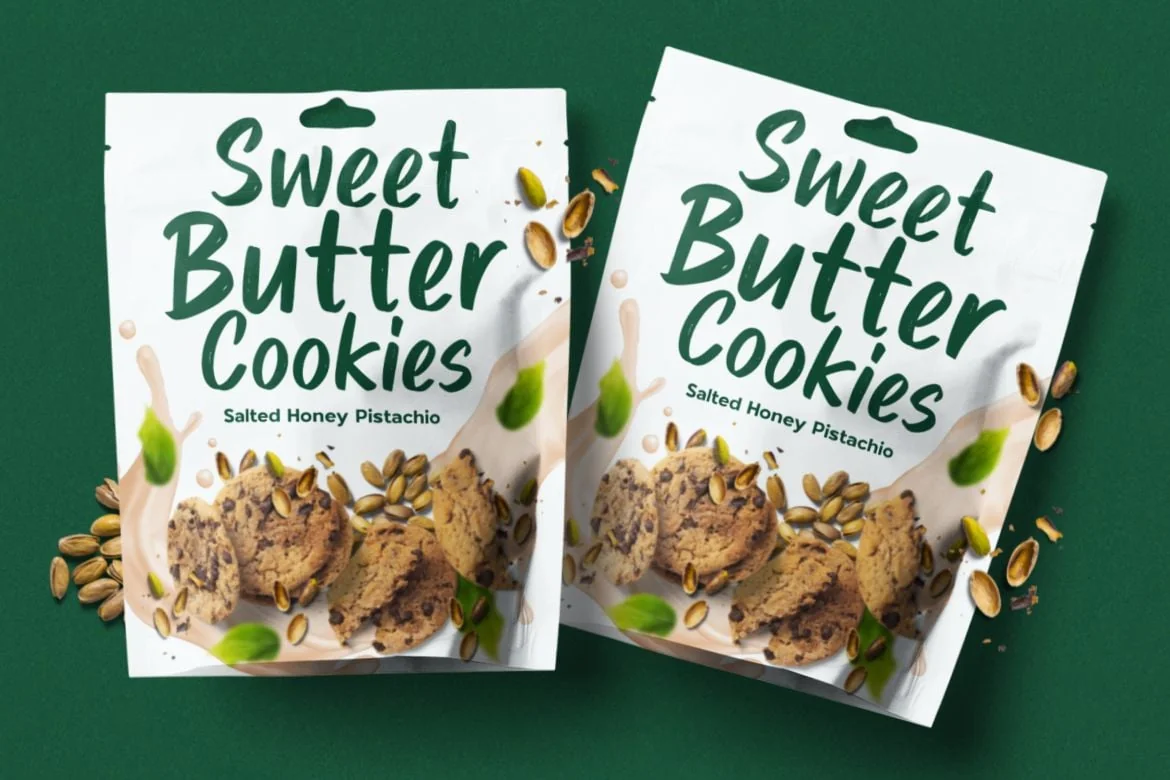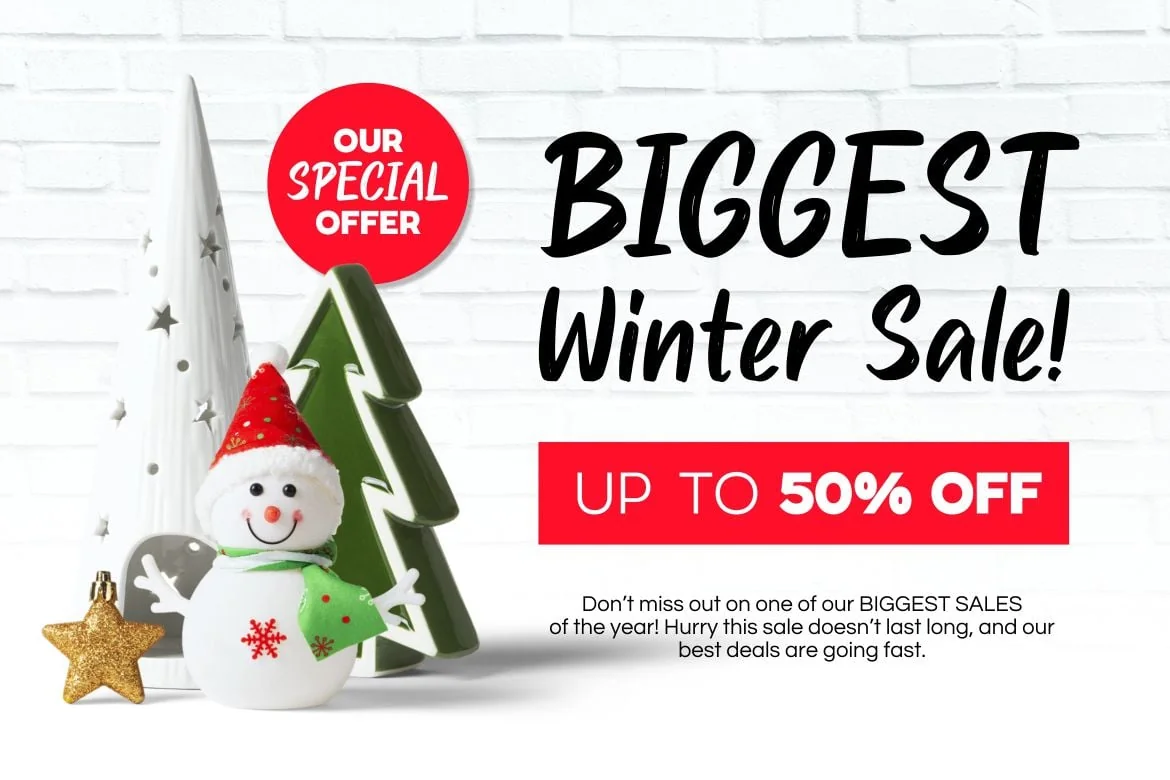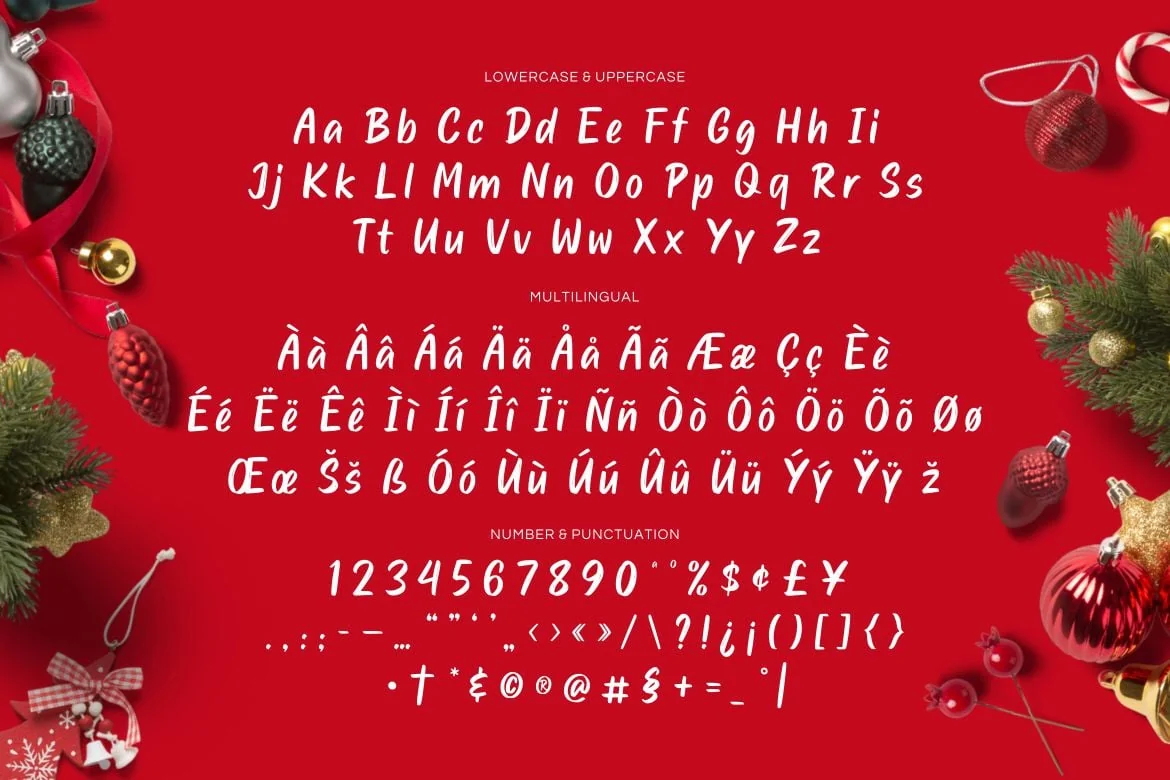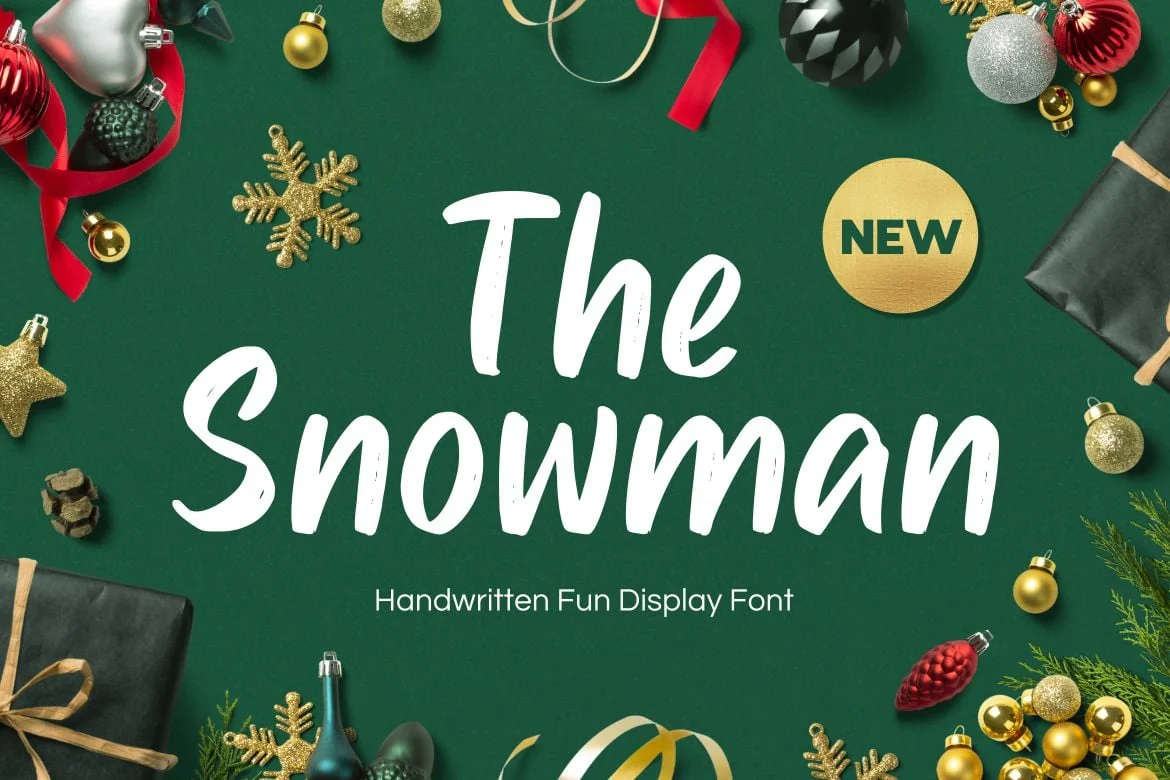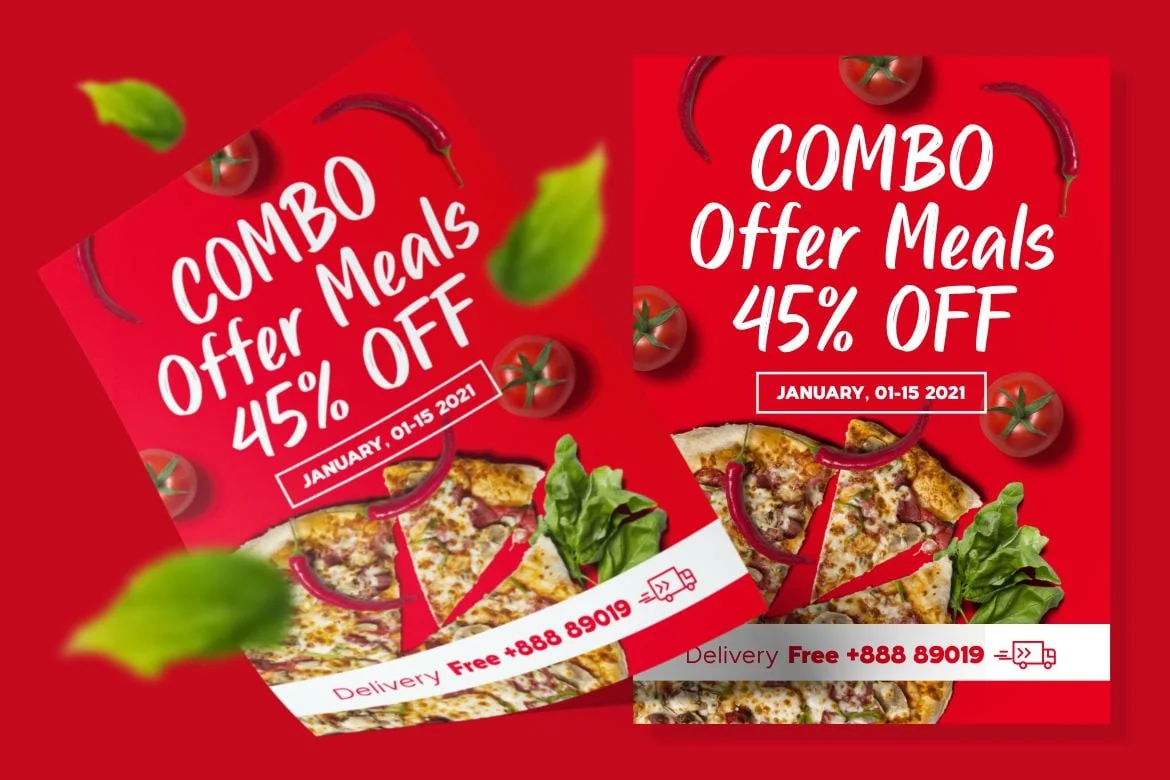
Snowman – Handwritten Fun Font
Snowman Handwritten Fun Font is a bright lovely clean calligraphy typeface with the right texture. It is good for short texts, headlines, packaging, poster, and much more!